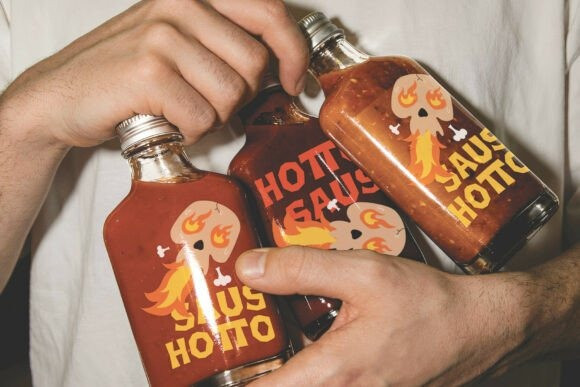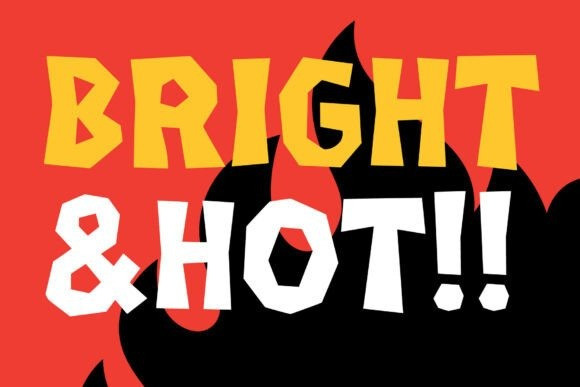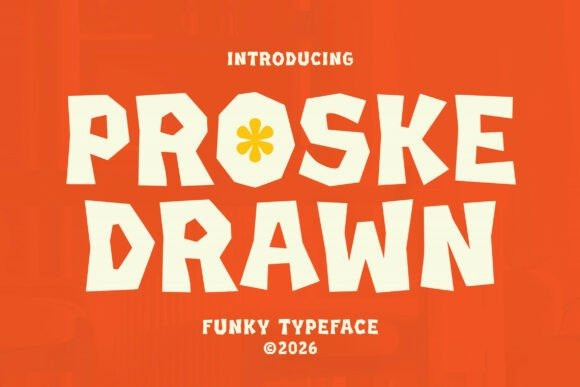
Proske Drawn Font
Proske Drawn Font a funky display typeface that captures the vibrant, paper-cut aesthetic of the 1970s. This ultra-bold font features irregular, angular edges and “wonky” geometric letterforms that radiate a hand-made, retro energy. With its heavy weight and playful flower-power accents, Proske Drawn is the premier choice for vintage-inspired snack packaging, independent vinyl record store branding, high-energy festival posters, and high-impact “retro-revival” social media headers.